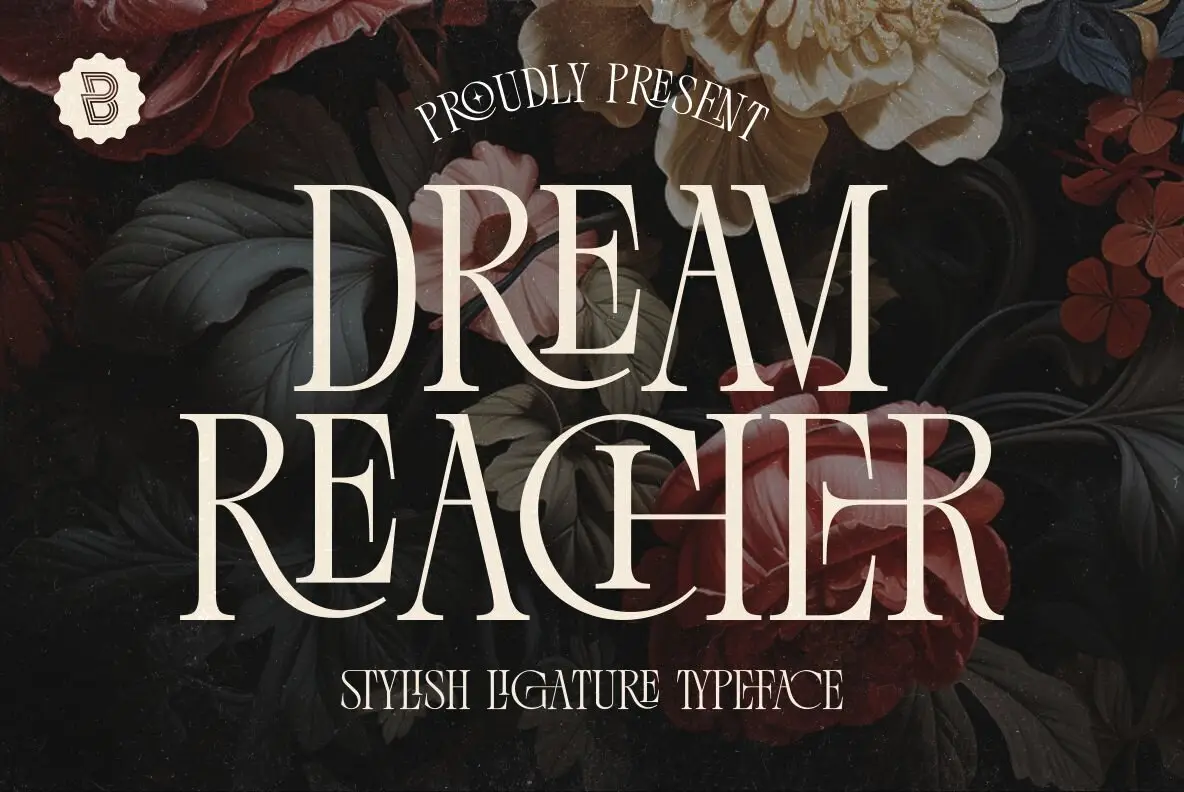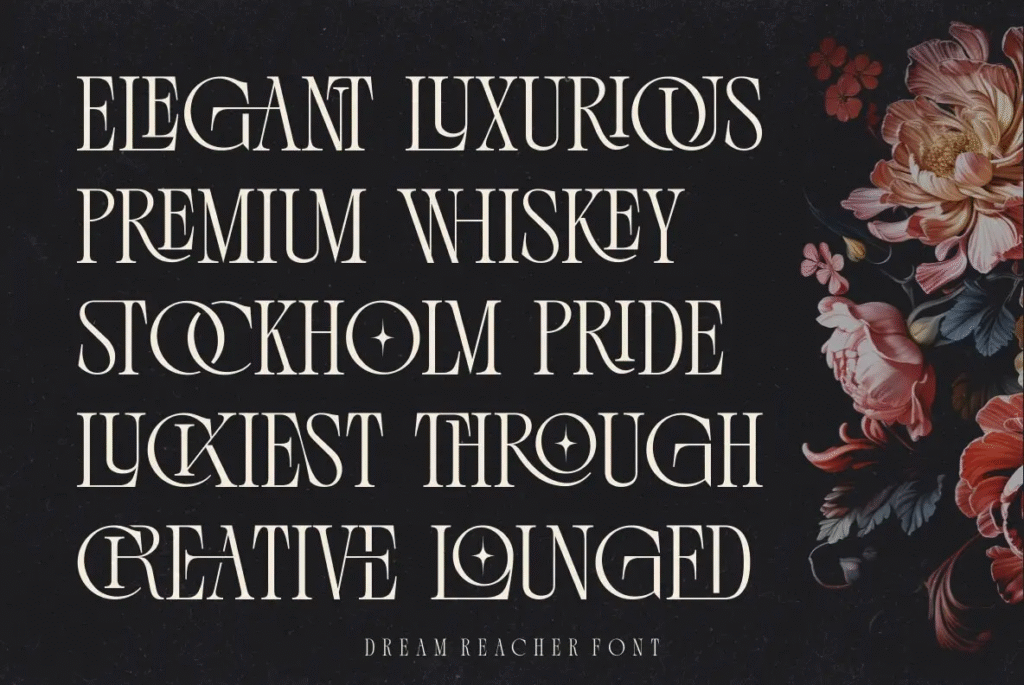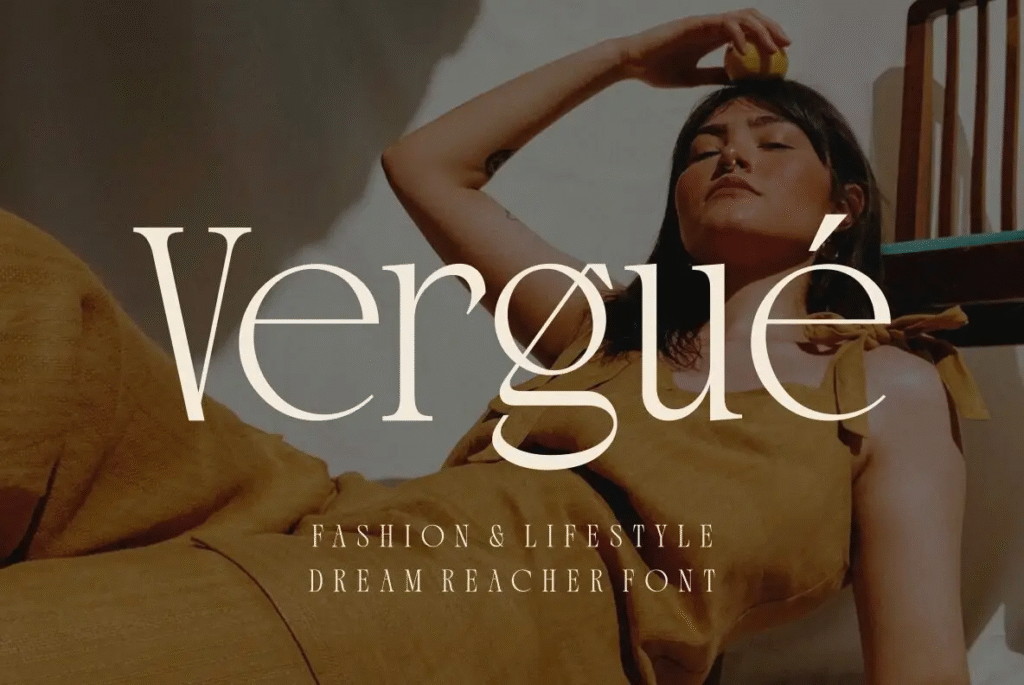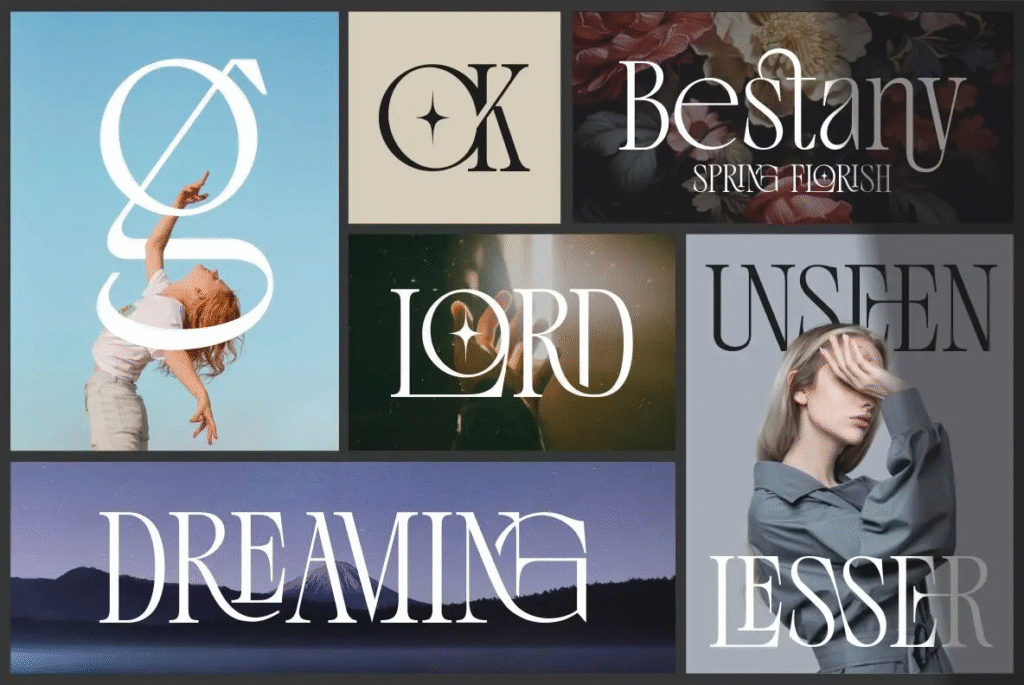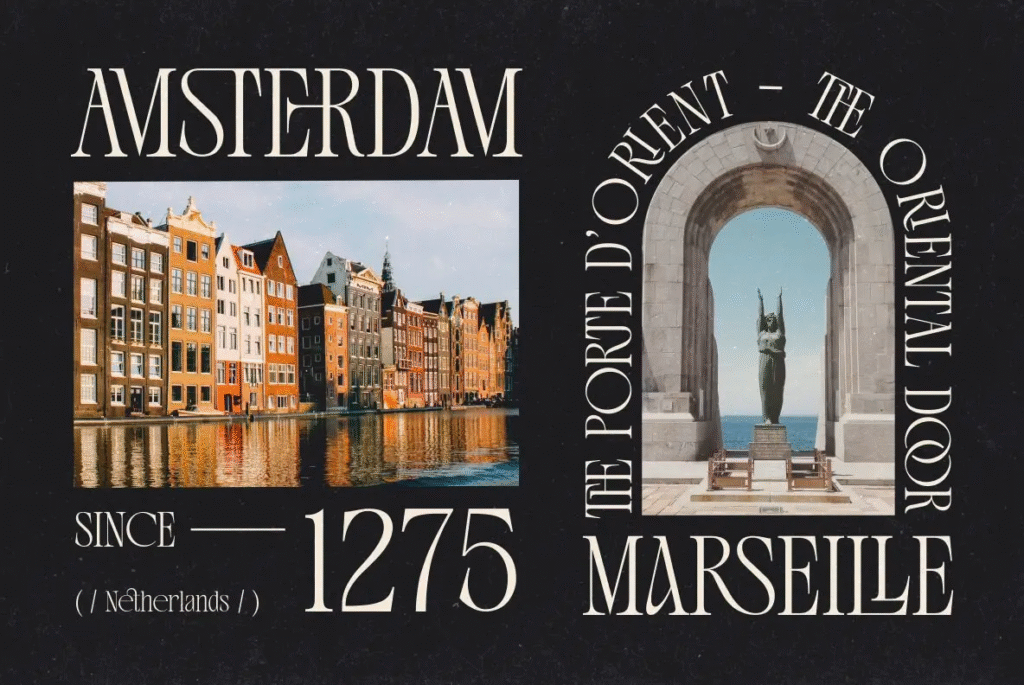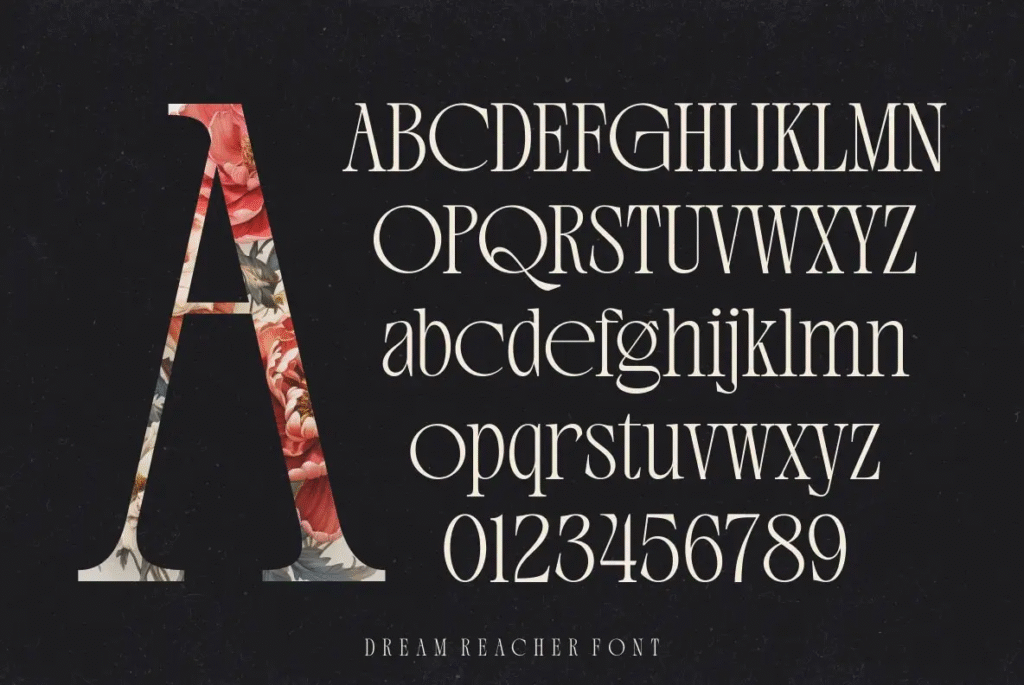
Dream Reacher Font
Dream Reacher stylish serif font with elegant ligatures and tall minimalist design.
Dream Reacher serif font showing creative ligature details.
Elegant typography sample using Dream Reacher typeface.
Tall slender serif letterforms of Dream Reacher font.
Minimalist branding mockup featuring Dream Reacher font.
Dream Reacher – Stylish Ligature Serif
Dream Reacher by Asenbayu is a creative serif typeface with elegant ligature details and a tall, slender design. Its beautifully crafted letterforms blend minimalism with decorative charm, making it a refined choice for modern design projects.
This font combines the timeless sophistication of a serif with unique ligatures and alternates, giving designers the flexibility to create harmonious and visually engaging layouts. Perfect for logos, branding, invitations, posters, or editorial design, Dream Reacher brings elegance and creativity to any project.
Key Features
• Stylistic alternates and ligatures
• Symbols, punctuation, and multilingual support
• Elegant tall shapes with minimalist appeal
Whether you’re designing for print or digital, Dream Reacher ensures your work stands out with stylish refinement.
Dream Reacher Font
Dream Reacher is a creative serif font with stylish ligatures and alternates, perfect for elegant branding, invitations, and modern editorial design.